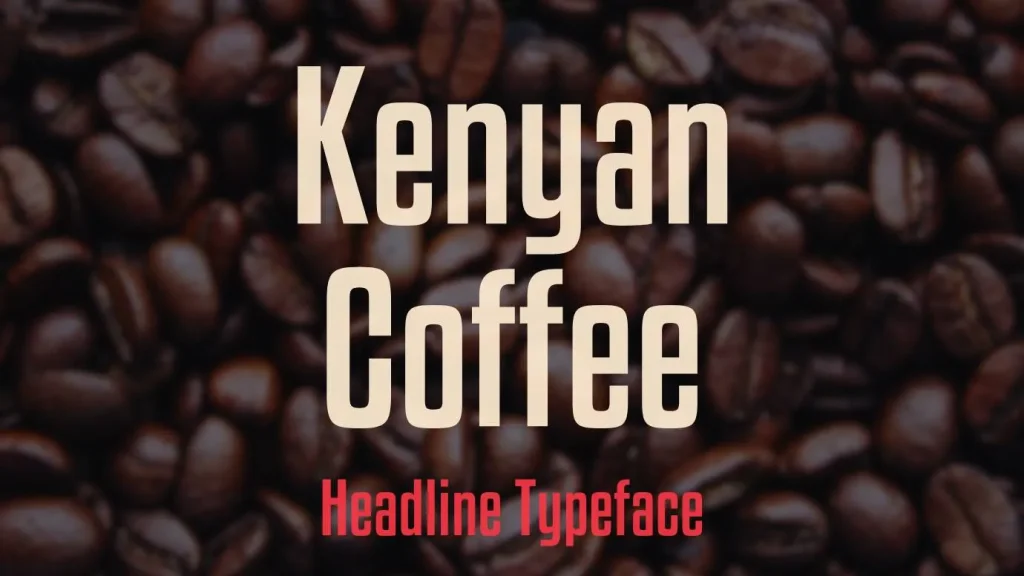
Kenyan Coffee Font is a sans-serif typeface that was designed to create unique and attractive projects. This typeface is ideal for giving any venture a distinctive and amusing touch. This website offers a free download of the user-friendly font.
It is ideal for any project that calls for a bouncy or playful typeface. This typeface is ideal for any project you may be working on, including greetings and postcards.
Additionally, this typeface works well for giving your emails and communications a special style. This typeface has fashionable symbols that will give your project a more polished appearance. Additionally, the design is ideal for marketing and advertising projects.
Few Examples of Kenyan Coffee Font Usage
The font may be utilized for a wide range of projects, including websites, journals, emails, messaging, advertising and promotional materials, invites, birthday cards, and many more. You may use it for any type of creative work, including web design and printing design.
Additionally, it has a pairing function that enables you to combine it with different fonts to give your project a special appearance. The typeface may be used to create intriguing plans, titles, store names, and emblems. The typeface family’s broad range of language support makes it an excellent companion for decorative fonts such as andalus font, resulting in a harmonious and visually appealing combination.
The writing style is also great for branding projects, home furnishing schemes, item packaging, or simply as a fashion media addition on any background image.
| Designer | Typodermic Fonts |
| Style | Sans-Serif |
Variations of Kenyan Coffee Font
Generate new postcards, branding, and new products with simple and elegant textures. You can also design covers and posters. On it, web development is also possible.
What kind of font is Kenyan Coffee?
The Kenyan Coffee is a sans-serif typeface with a practical design. By using it, a design may be unique and stand out.
Who designed the Kenyan Coffee typeface?
This typeface was designed by Typodermic Fonts it is a nice and elegant text design that has nice styles.